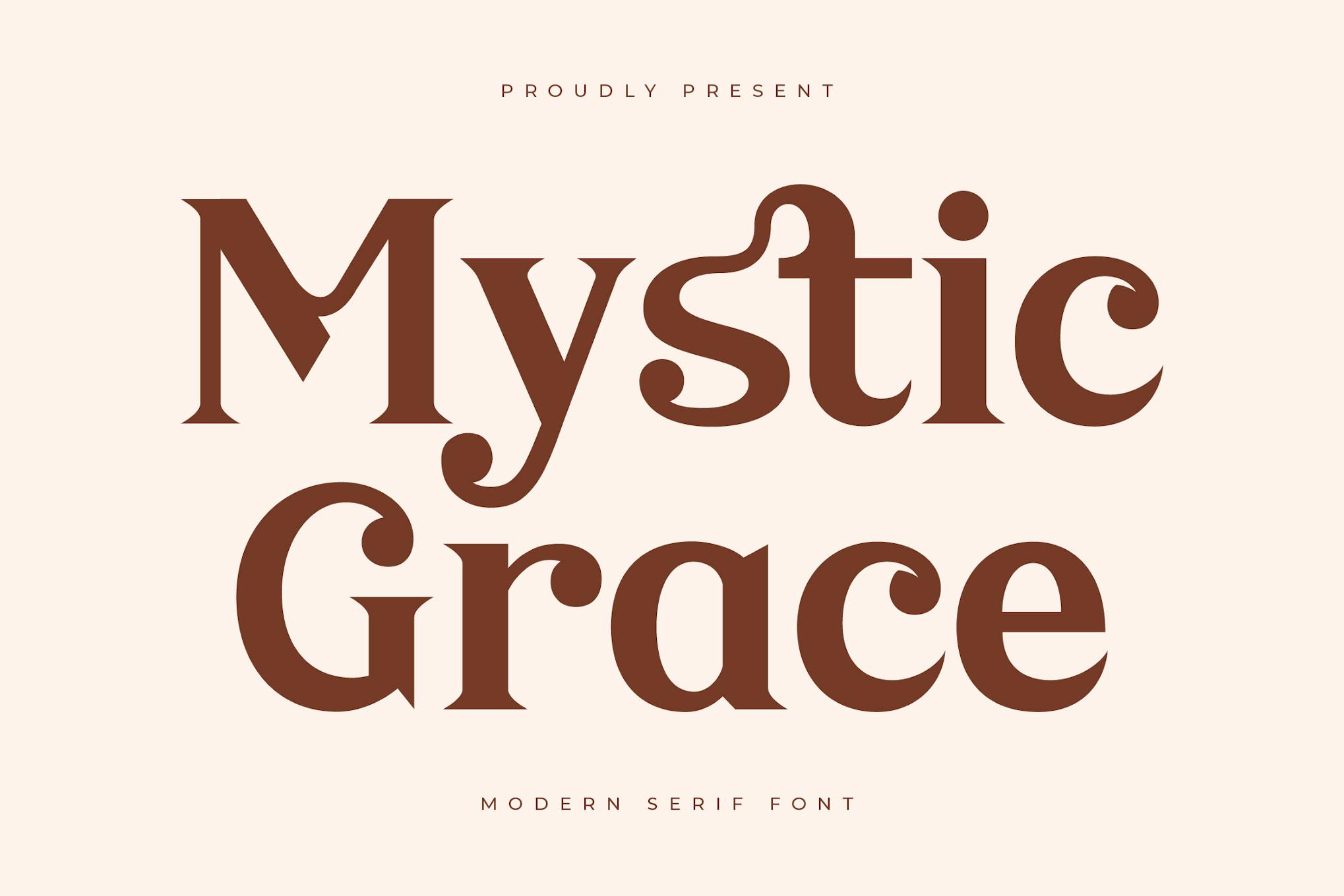
Mystic Grace Modern Serif Font is a sophisticated typeface designed to enhance any written project with its elegant and contemporary serif style. It features normal spacing and is optimized for readability at any size, making it ideal for both digital and print applications. This font adds a touch of refinement to branding, invitations, and other creative works.